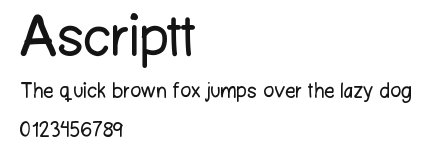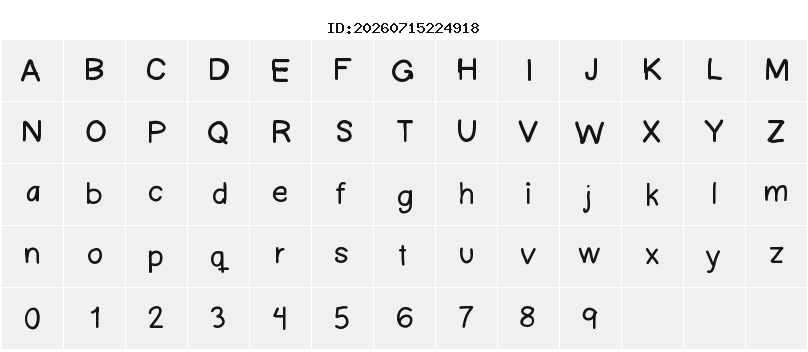
Ascriptt Preview
• Font Name: Ascriptt
• Full Font Name: Ascriptt
• PostScript Name: Ascriptt
About Ascriptt.ttf
Ascriptt.ttf is a modern, elegant sans-serif font designed for ultimate readability and visual harmony. Perfect for branding, headlines, web design, and print materials.